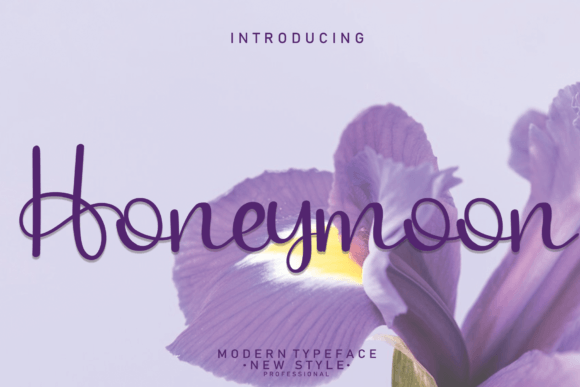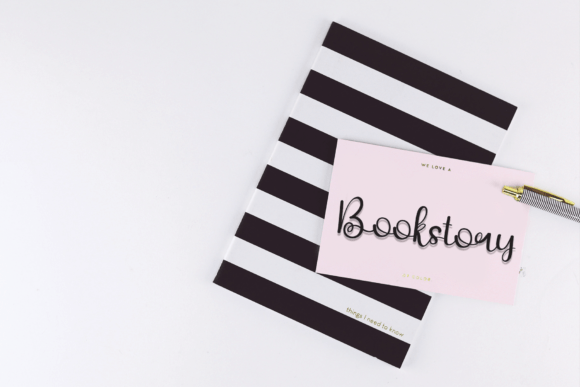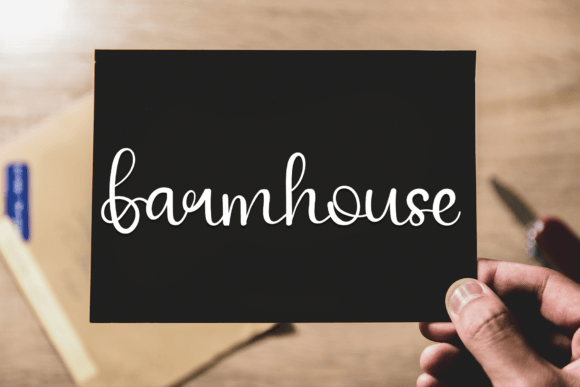
Honeymoon Font
About Honeymoon Font
The Honeymoon Font Download is a fun and friendly handwritten typeface designed to add charm, warmth, and creativity to your projects. With its casual strokes and smooth handwritten flow, Honeymoon brings a natural and approachable style to both personal and professional designs. As a result, it quickly becomes a go-to choice for designers who want their work to feel lively and engaging.
Moreover, Honeymoon is highly versatile and works beautifully across digital and print formats. Whether you’re designing greeting cards, building branding materials, or creating social media graphics, this font ensures your projects stand out while maintaining readability.
Features of Honeymoon Font
When you choose the Honeymoon Font Download, you’ll enjoy these standout features:
• A fun and playful handwritten style with natural curves
• Smooth strokes that create balance and polish
• Great readability at both small and large sizes
• Flexible design for casual and professional projects
• An approachable vibe that adds personality to every creation
Best Uses for Honeymoon Font
The Honeymoon Font Download is suitable for a wide range of design purposes. For example, it works perfectly for:
• Greeting cards and invitations – Add a warm, personal touch to your messages
• Craft projects – Enhance handmade items with charm and creativity
• Logos and branding – Build approachable and stylish brand identities
• Social media graphics – Make eye-catching posts on Instagram, Pinterest, or blogs
• Event posters and flyers – Fun and bold handwritten text that draws attention
• Stationery and packaging – A casual yet professional look for products and designs
Because of its adaptability, Honeymoon quickly becomes a reliable font for designers seeking versatility.
Why Choose Honeymoon Font
The Honeymoon Font Download stands out because it blends playfulness with professional polish. Its handwritten style feels personal and authentic, while its clean structure ensures clarity across all media. In addition, it can be used across industries, from fashion and lifestyle branding to DIY and craft projects.
Furthermore, Honeymoon is easy to use in common design platforms, making it beginner-friendly yet detailed enough for professionals. As a result, it offers both flexibility and quality for a variety of projects.
In conclusion, the Honeymoon Font Download is a fun, friendly, and versatile handwritten typeface that enhances every design with charm and creativity. From greeting cards and invitations to branding and social media, this font brings warmth and personality to your work.